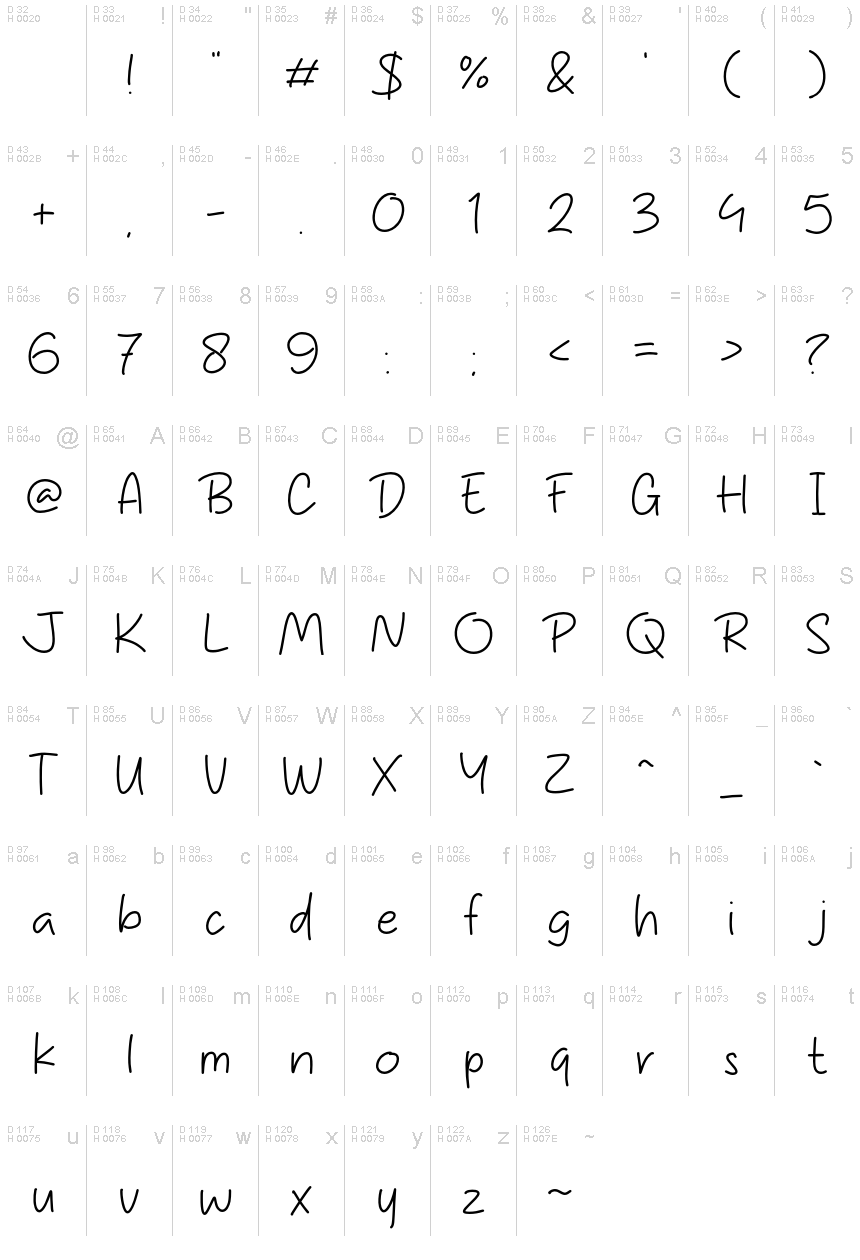
Diary Agustus
Diary Agustus font, crafted by MJType, exudes a whimsical handwritten elegance with its light, airy strokes. This font captures the charm of personal journal entries or casual notes and is perfect for projects that seek authenticity and warmth. Its unique aesthetic appeal lies in the fluidity of each letter, offering both readability and personality.
Ideal for creative projects like greeting cards, invitations, or social media posts, Diary Agustus enhances any design with its fresh and free-spirited vibe. This free font is accessible for download, making it an excellent choice for designers looking to add a touch of individuality without cost. Unlock the potential of your next project with Diary Agustus font — a perfect blend of style and spontaneity.